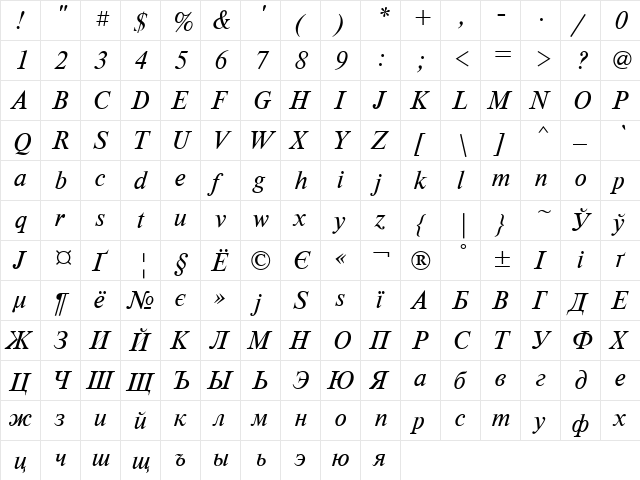
NewtonCTT Medium
Design Context for NewtonCTT Typeface
NewtonCTT offers clean, dependable letterforms without strong stylistic allegiance, making it a practical choice for designers who need flexibility.